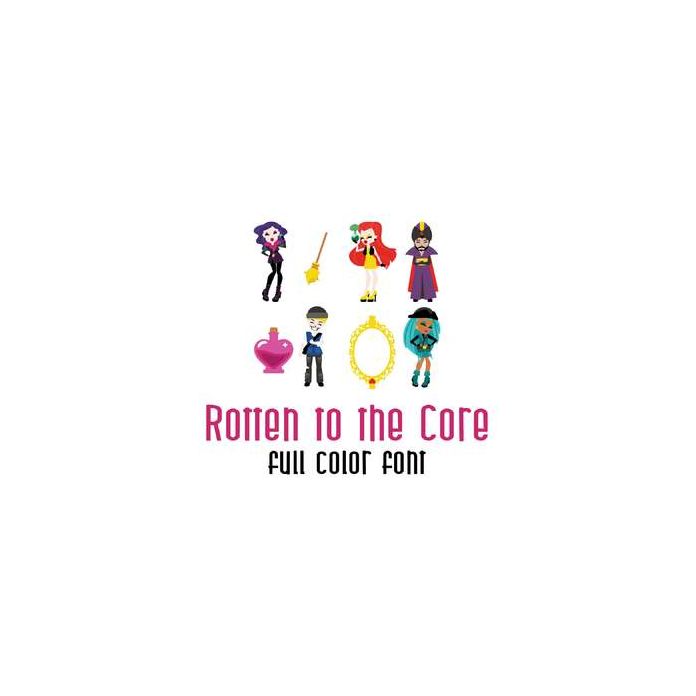
This adorable full color doodlebat font features adorable characters and villains. Perfect for cards, crafts, gifts, decor, scrap book pages, planner stickers and more!